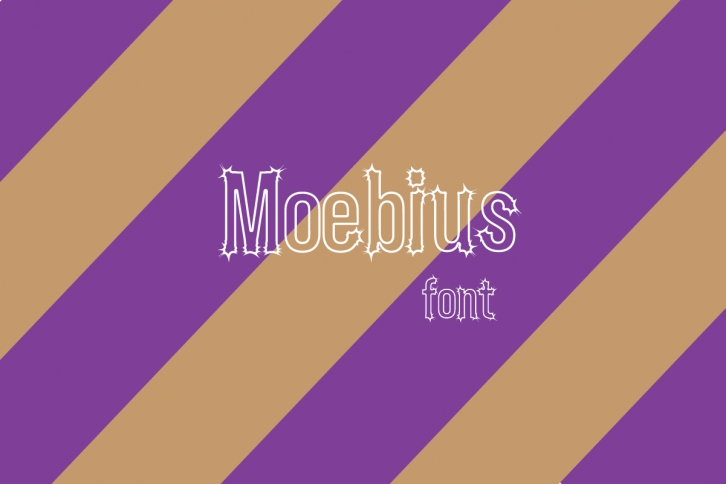
Mobius is a fun, quite unique, and attractive display font. It’s perfect for your upcoming projects including sublimation, greeting cards, advertisements, birthday parties, quotes, titles, brand names, book covers, and more. Your creative options are endless!